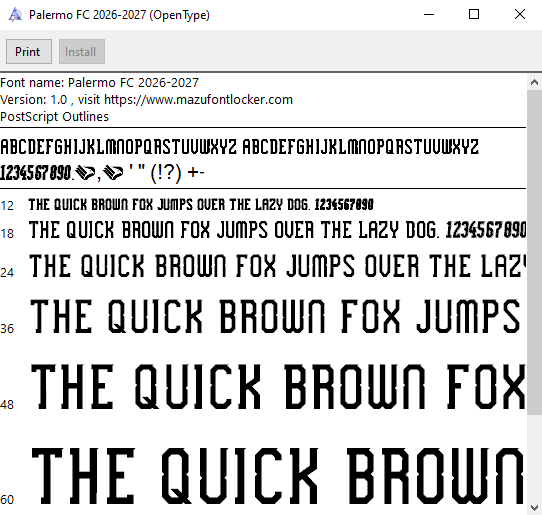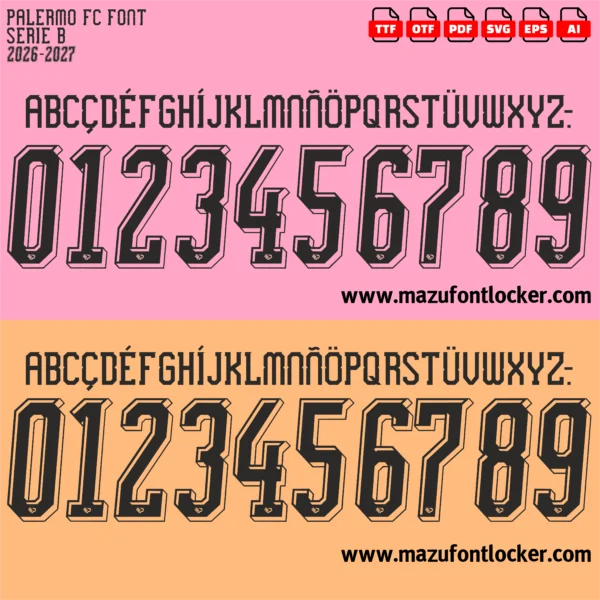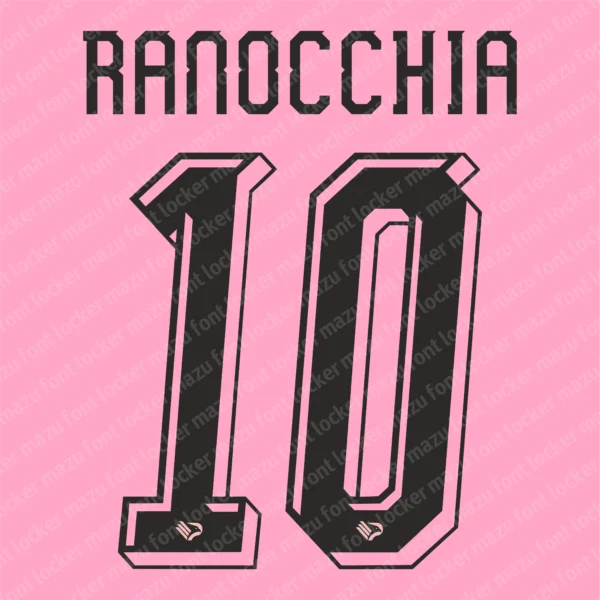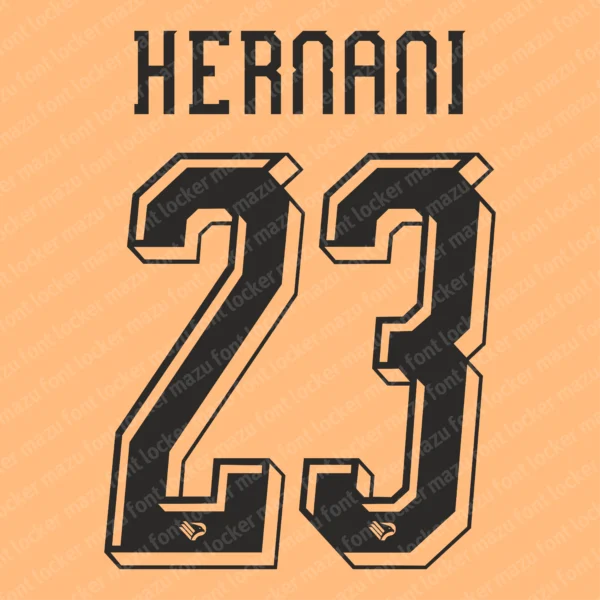
Palermo FC 2026-2027 Font Vector – Legendary Rosanero Masterpiece
This font captures the unstoppable, precision-forged lettering inspired by Palermo FC’s iconic pink-and-black identity, proud Sicilian heritage, legendary Rosanero tradition, and fearless warrior-like football spirit — delivering premium authenticity and explosive match-day energy for professional jersey mockups, football graphics, sports branding, fan designs, and high-end creative projects.
Palermo FC 2026-2027 Font Vector – Stunning Pink & Black Typeface
The Palermo FC 2026-2027 Font Vector is a premium typeface that accurately recreates the distinctive match lettering associated with Palermo FC for the 2026-2027 football season. This high-quality vector font kit captures the bold, clean, and instantly recognizable typography that perfectly complements the club’s iconic pink and black identity.
Designed for professional designers, football enthusiasts, jersey collectors, and passionate Palermo supporters, the Palermo FC 2026-2027 Font Vector delivers exceptional authenticity for creating realistic jersey mockups, football merchandise, social media graphics, match posters, squad designs, and custom fan artwork. Every character has been carefully recreated to reflect the powerful and precise visual style of one of Italy’s most distinctive and passionate football clubs.
Why Choose Palermo FC 2026-2027 Font Vector
This font stands out thanks to its precise vector construction and authentic club-inspired styling. Every letter and numeral has been meticulously recreated to match the distinctive football lettering aesthetic associated with Palermo FC during the 2026-2027 season and its domestic campaigns.
Whether you’re producing professional football kit templates, custom jersey concepts, or eye-catching football content, the Palermo FC 2026-2027 Font Vector delivers a genuine match-ready appearance inspired by the identity of the Rosanero.
The lettering featured in the Palermo FC 2026-2027 Font Vector combines clean geometric lines with bold modern proportions. The result is a premium and highly readable typeface that reflects Palermo FC’s proud football heritage, iconic pink and black colors, Sicilian identity, and passionate global fanbase.
• Complete uppercase A–Z alphabet and numbers 0–9 in authentic Palermo FC 2026-2027 inspired style
• Special Palermo FC badge glyph – Press the “:” (Colon) key to insert the club crest